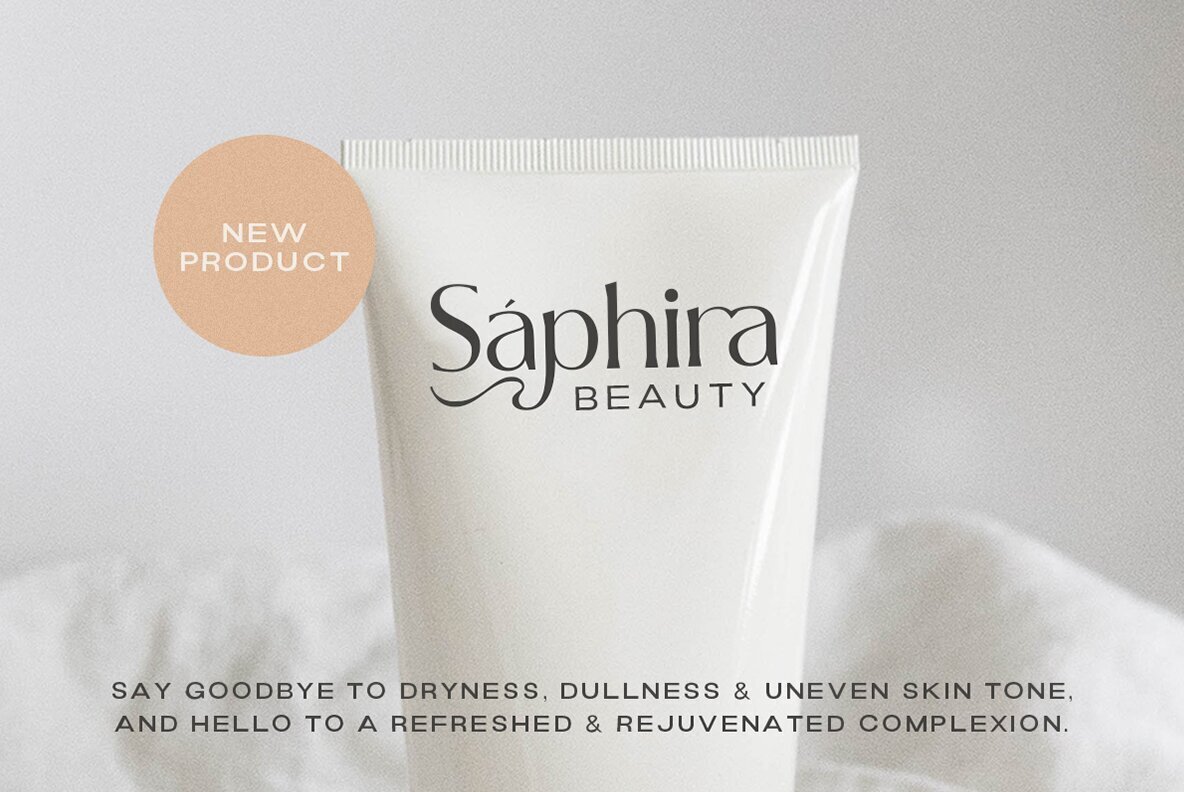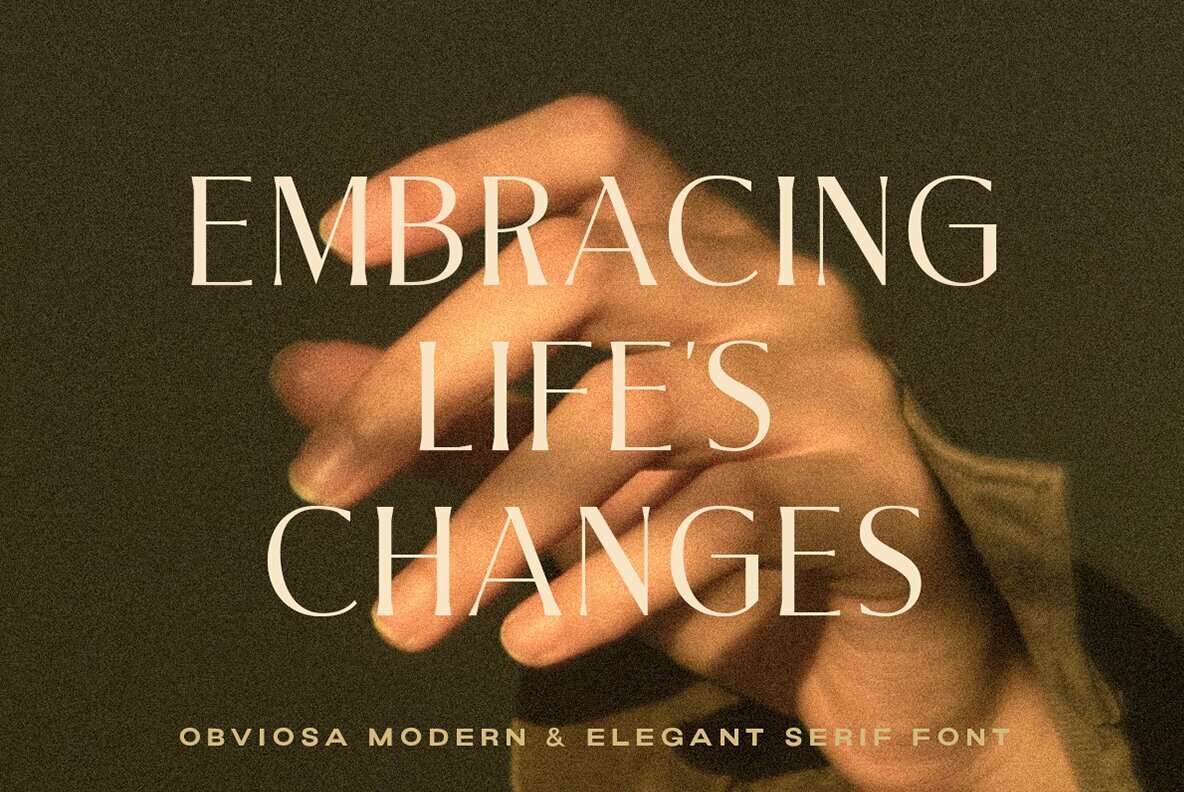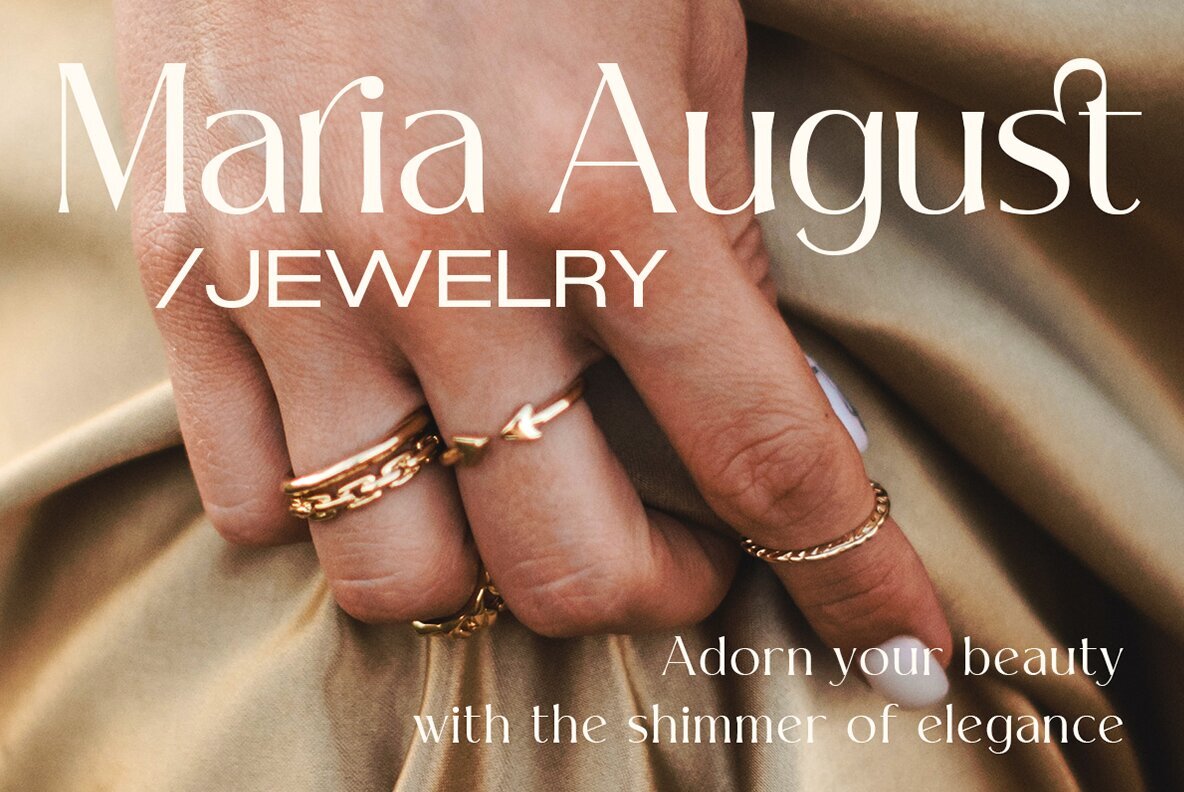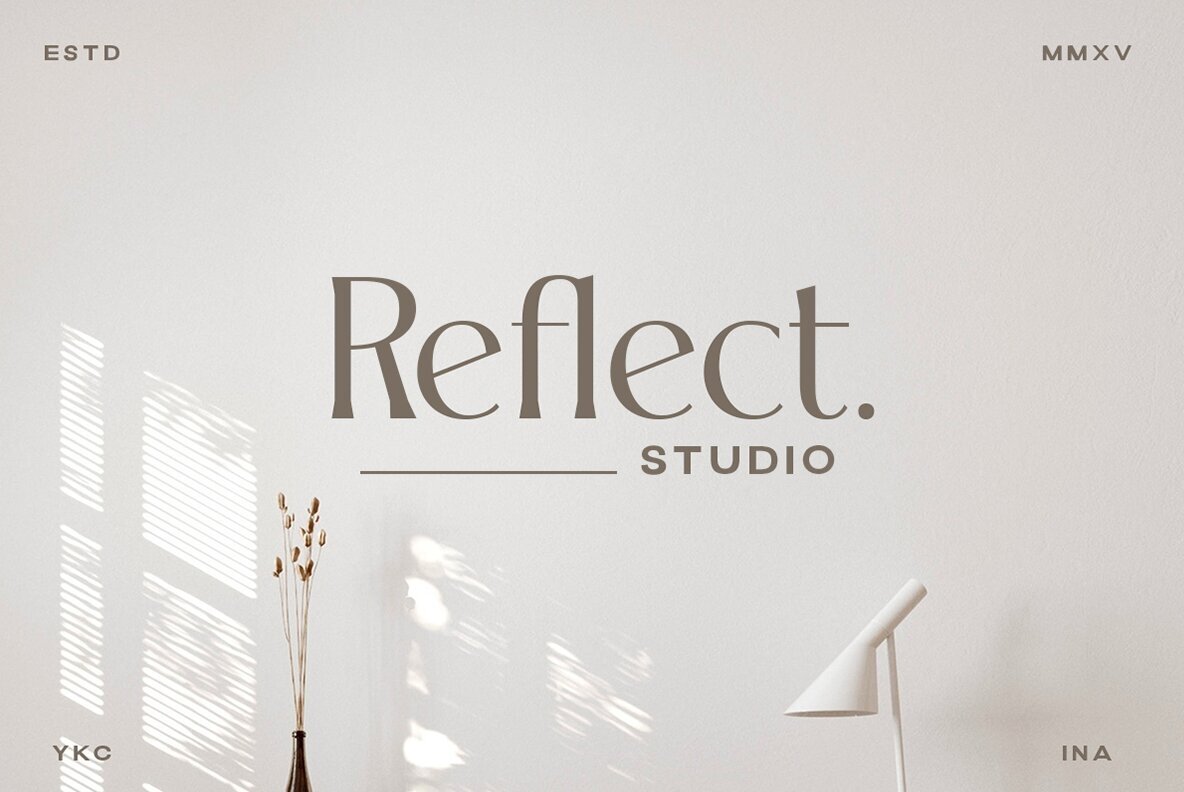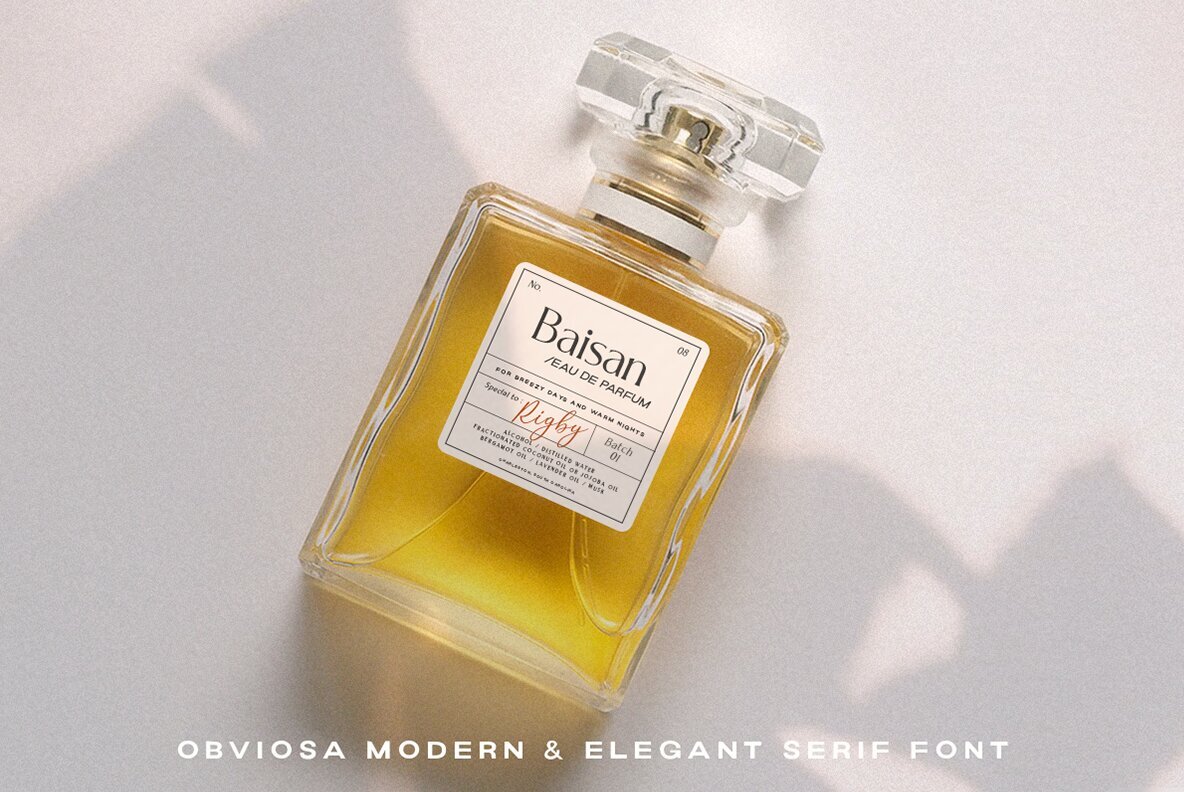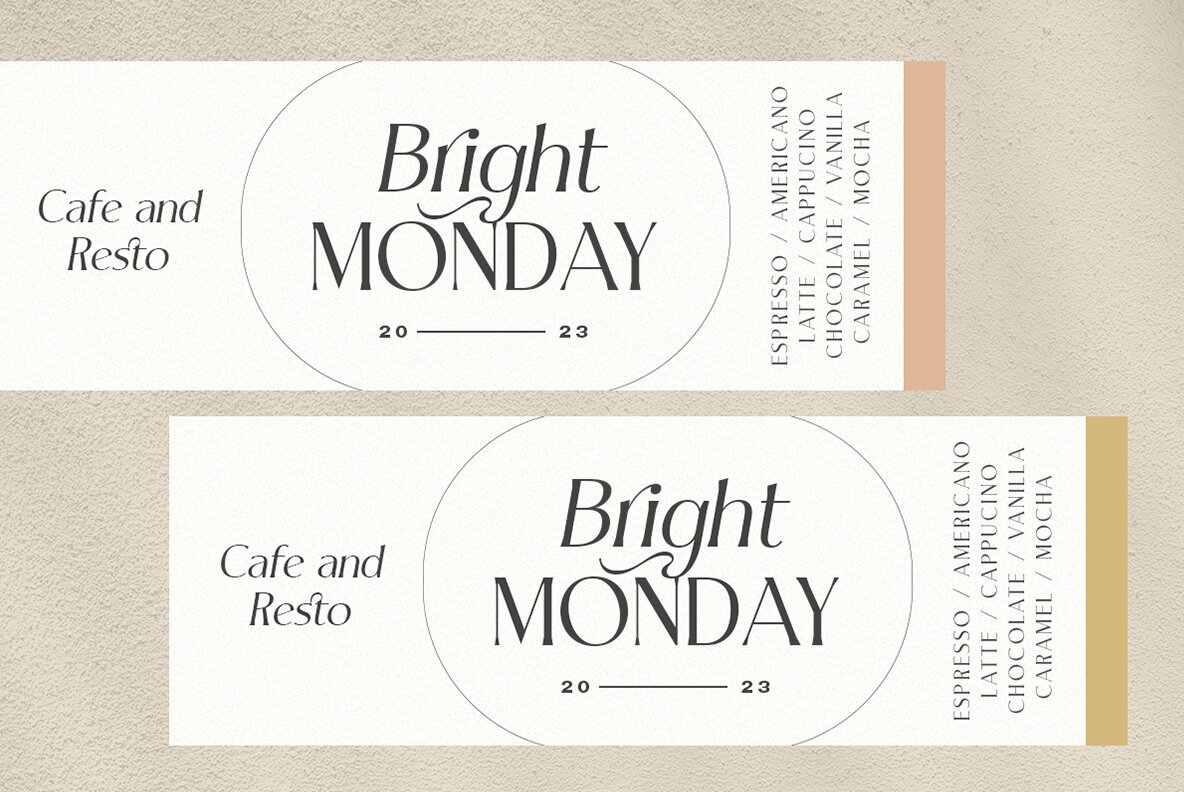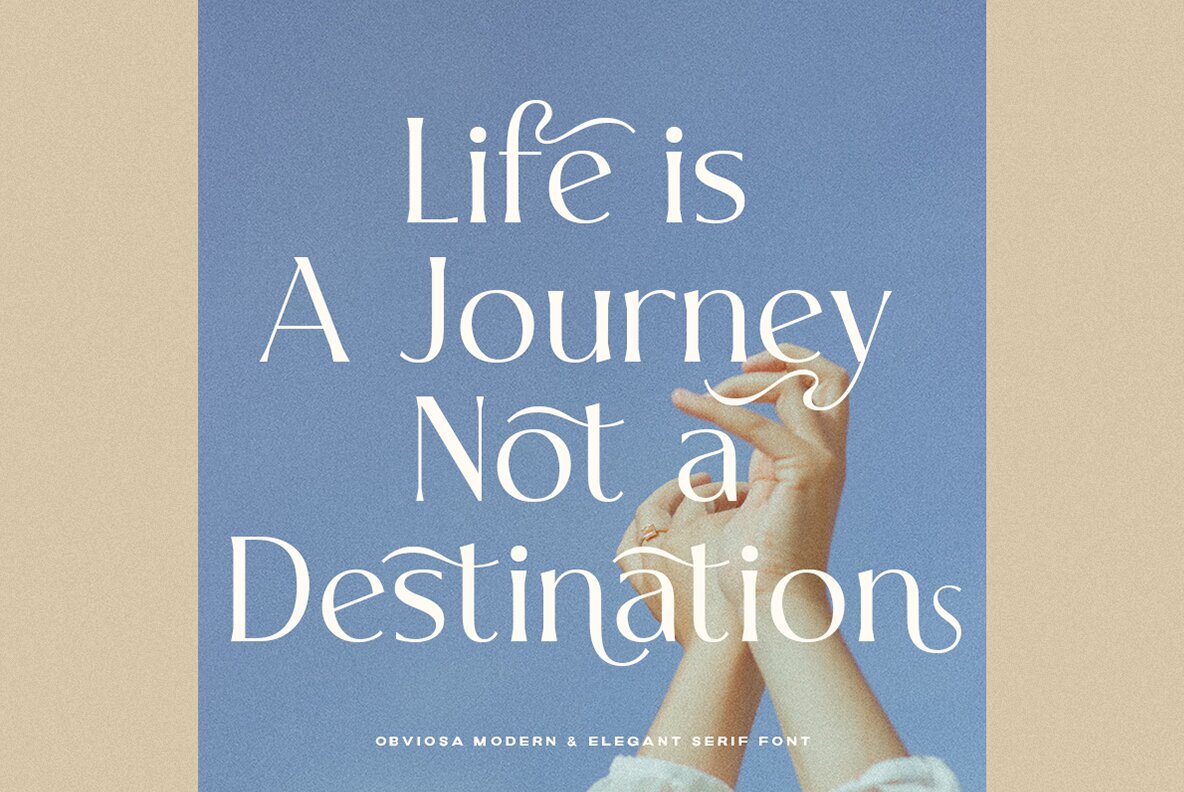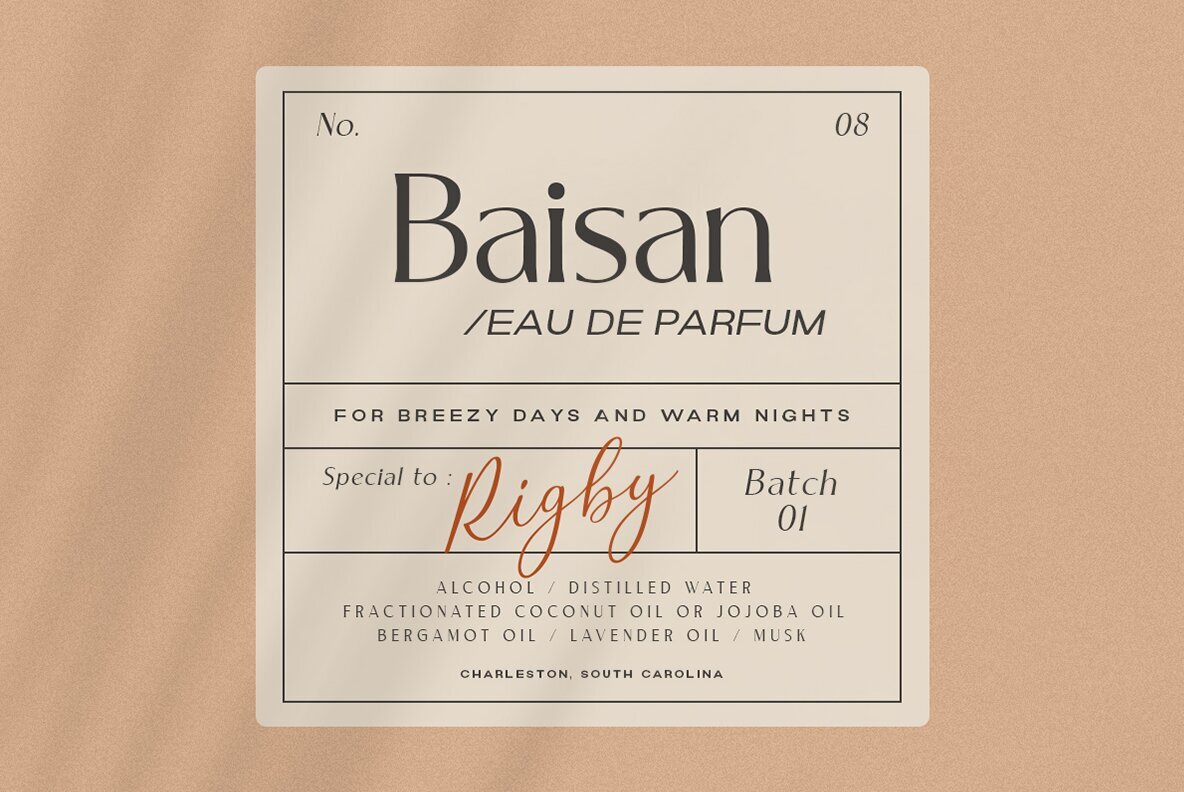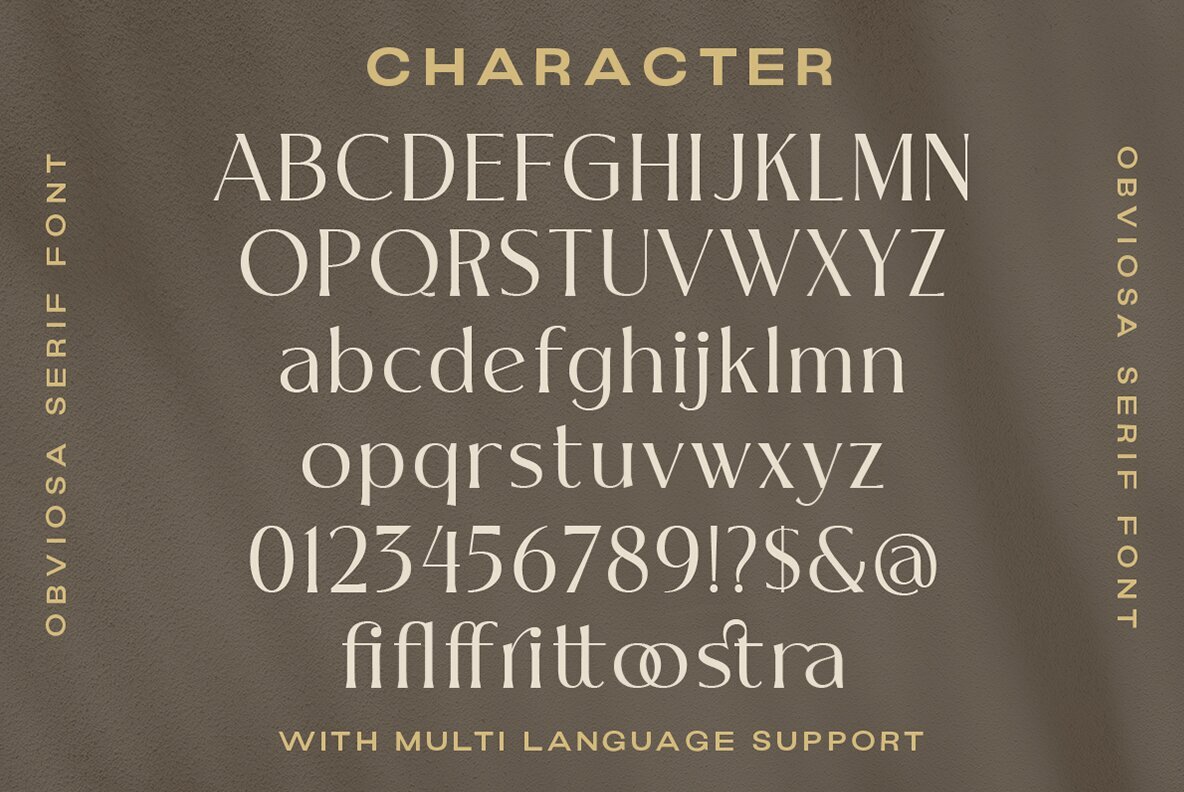
Obviosa Font
Obviosa Regular
Obviosa is a serif font that is both chic and modern. Its slim strokes create a sense of elegance that is perfect for upscale design projects. Whether you're creating a wedding invitation or a business presentation, Obviasa will add a touch of refinement and class.
- Uppercase & lowercase
- Numbers and punctuation
- Alternates & Ligatures